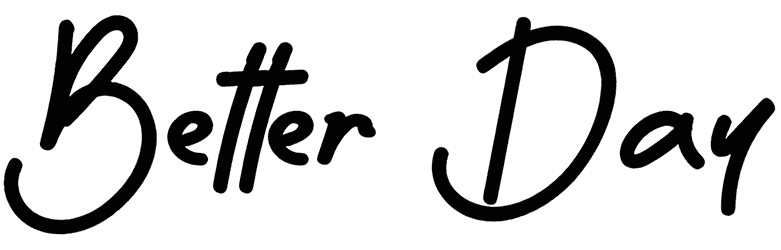
Better Day Font
If you are casting about for promoting a contemporary and urban design, this handwritten font can be the right choice. Better Day consists of a casual and smooth letterform that would be nice for various subjects. House this handwritten font on your intended projects, for instance, apparel, logos, books, posters, or more of the same, and lend them a delightful vibe.